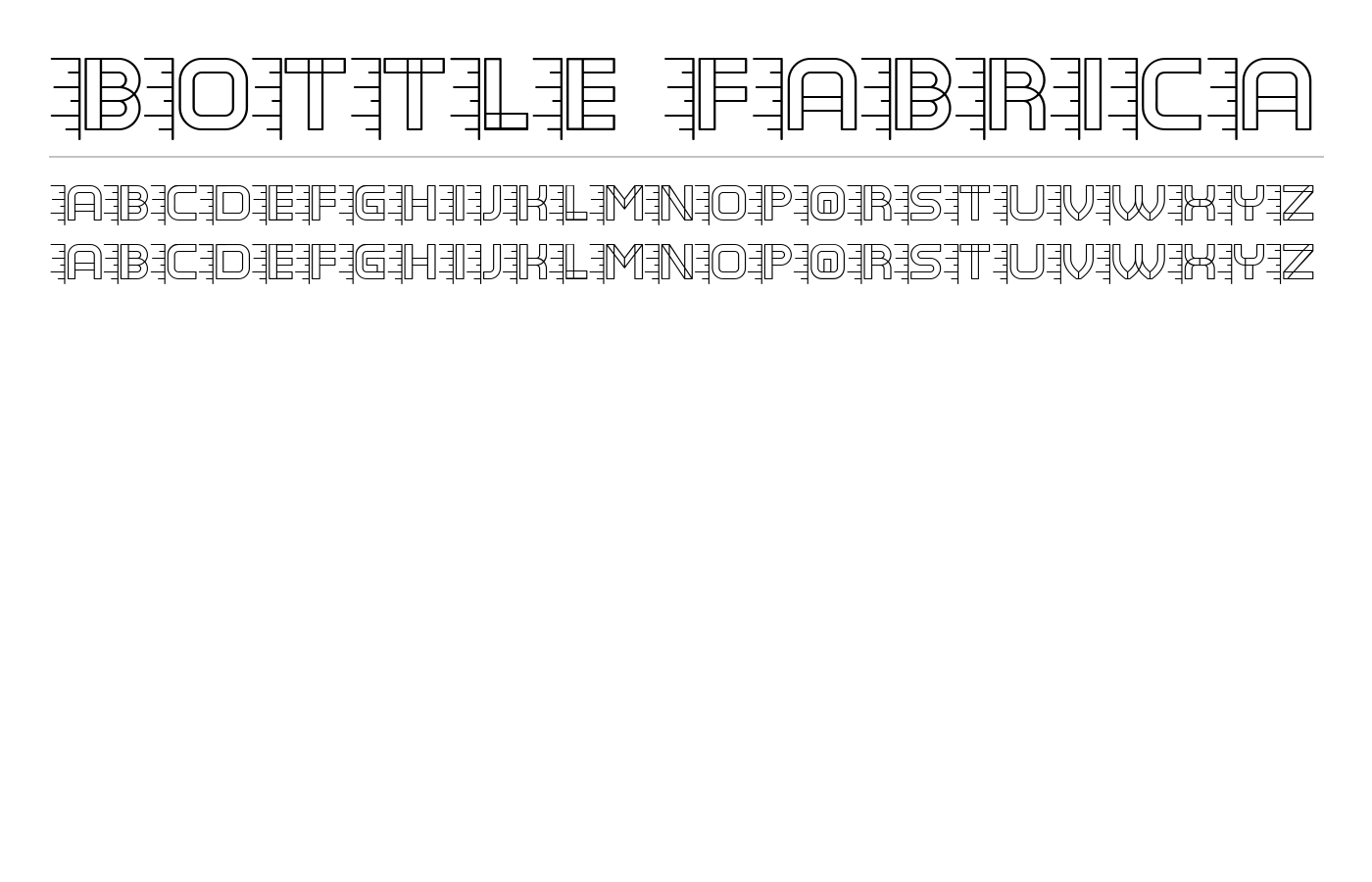
Bottle Fabrica is a modern, geometric sans serif font with a distinctive industrial and technical feel. Its narrow, outlined letterforms combined with evenly spaced, short horizontal lines give it a mechanical and futuristic character, making it ideal for tech branding, creative packaging, and edgy editorial designs. This font’s clean, airy structure works best in large sizes for headlines or logos where its unique style can truly stand out.
Bottle Fabrica Font
About Bottle Fabrica Font